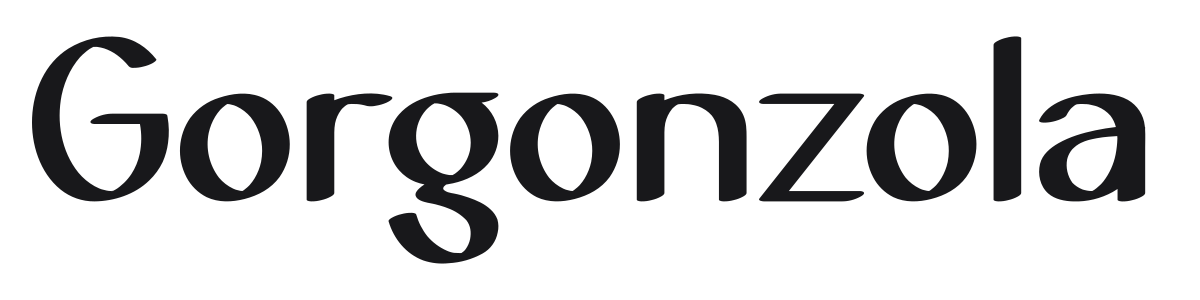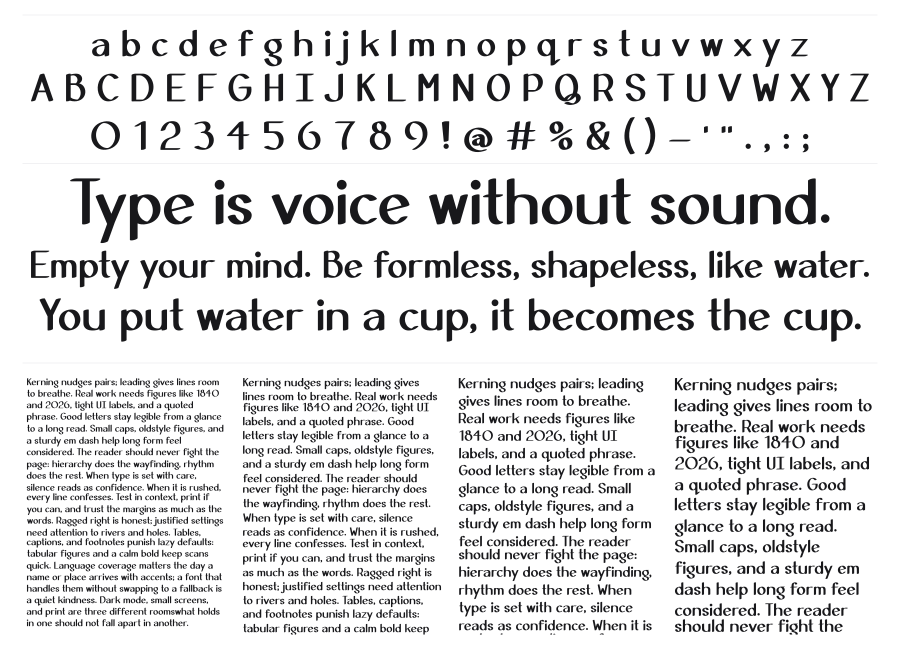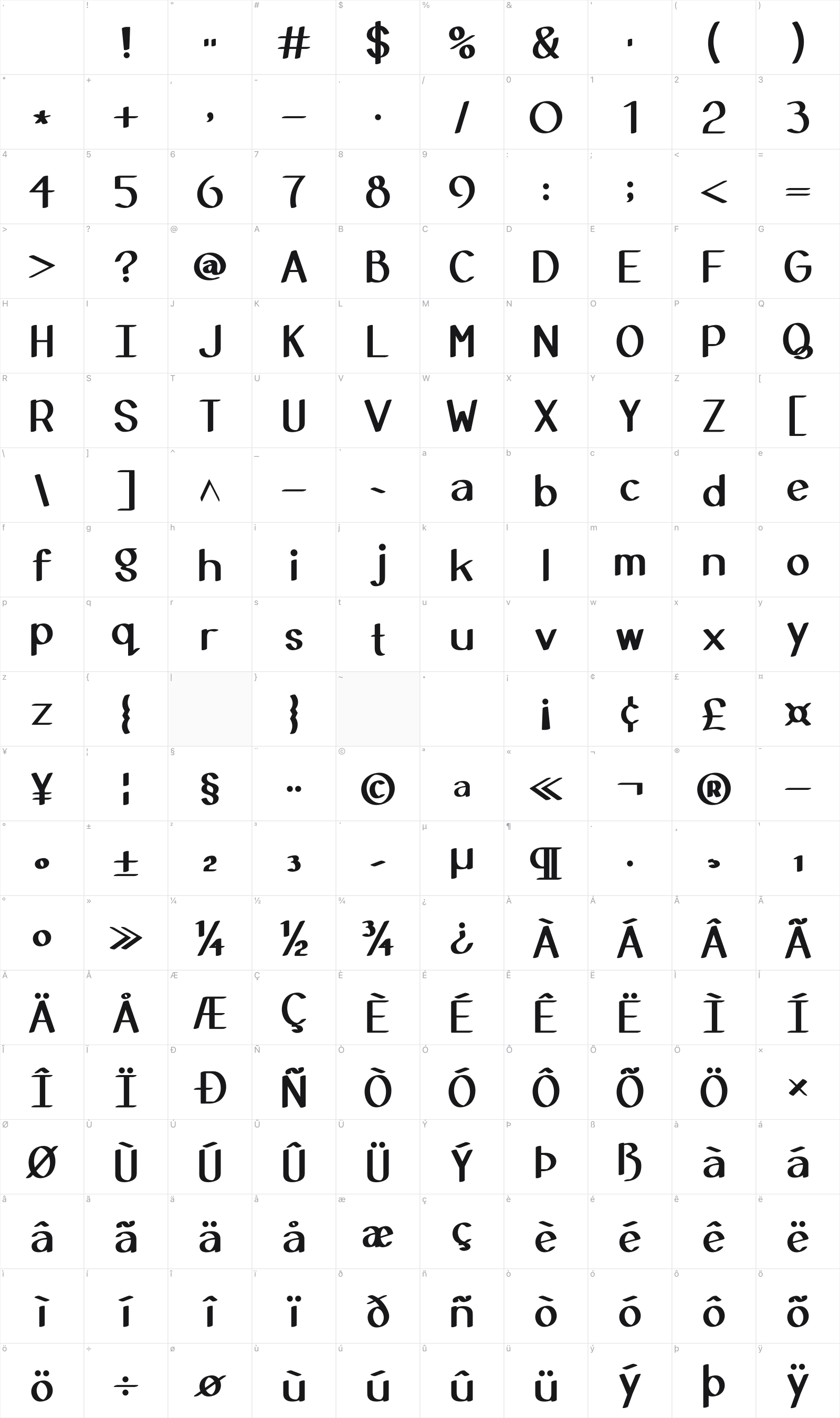
Gorgonzola
Gorgonzola is a bold humanist sans with unexpectedly high stroke contrast, drawing on calligraphic energy to give the design a distinctive, lively rhythm. Wide proportions and flared terminals sit somewhere between a classic sans and an unseriffed inscription face. Named after a famously pungent cheese, it lives up to the brief: characterful and hard to ignore.